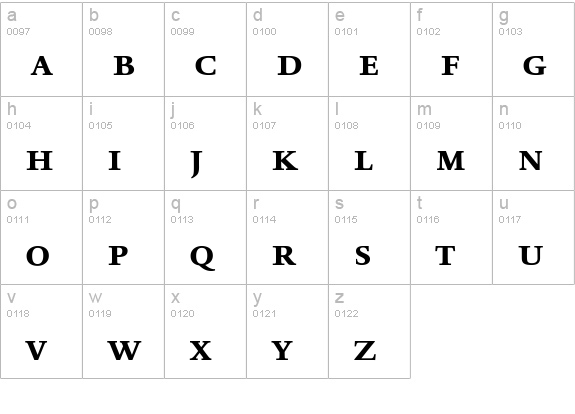
DTL Romulus T Caps Bold is a strong, high-contrast variant in the DTL typeface family \xE2\x80\x94 well suited to headlines, attention-grabbing titles, and strong calls-to-action.
The DTL Romulus T Caps Bold font is a striking and versatile typeface that exudes a sense of modernity and sophistication. Its bold and distinctive design makes it ideal for creating eye-catching headlines, titles, and logos. With its clean lines and sharp edges, this font is sure to make a bold statement in any design project. What makes this font even more appealing is that it is available for free download at FontsMarket.com. This means that designers and creatives can easily access and use this high-quality font without any cost involved. Whether you are working on a branding project, editorial layout, or web design, the DTL Romulus T Caps Bold font is a valuable addition to your font library. Add a touch of elegance and professionalism to your designs with the DTL Romulus T Caps Bold font, now freely available for download at FontsMarket.com.